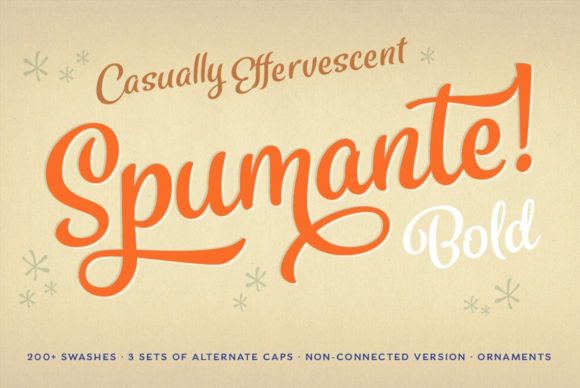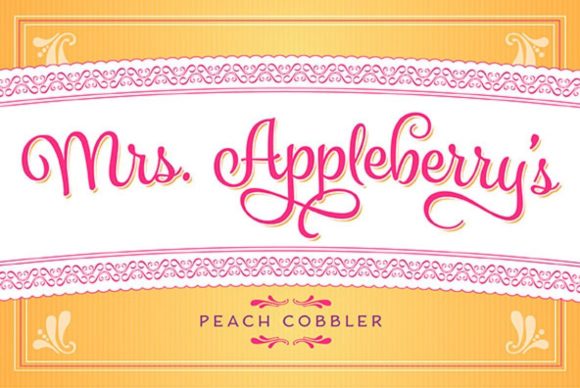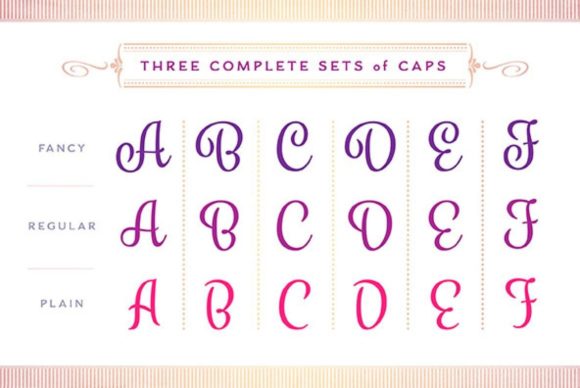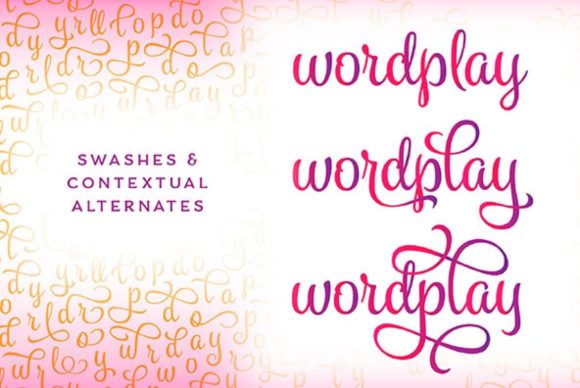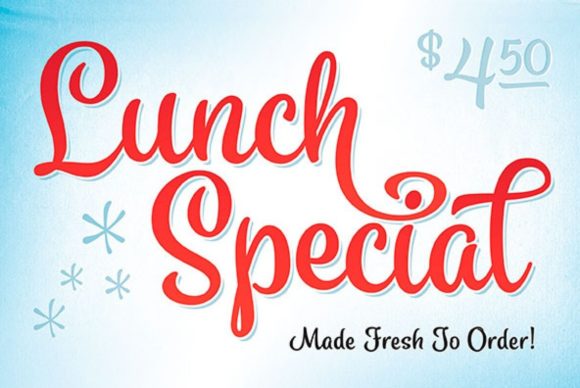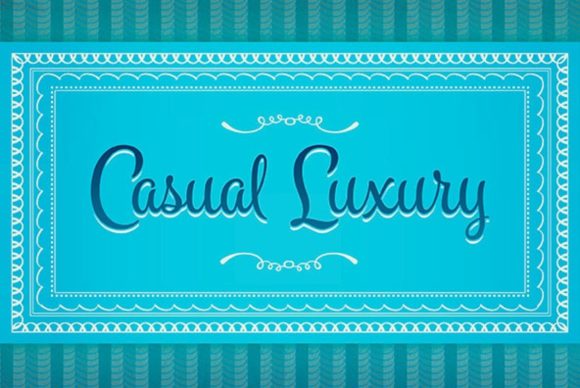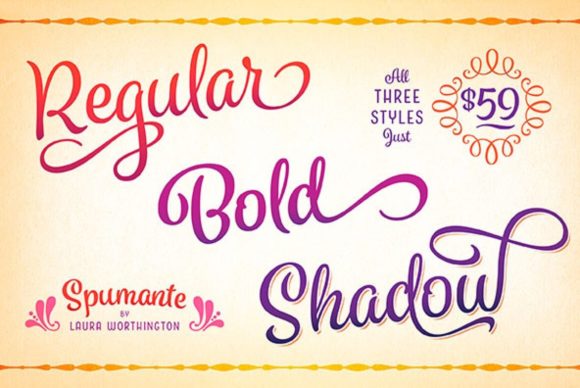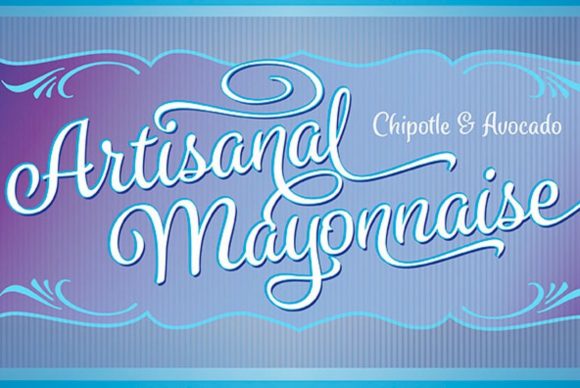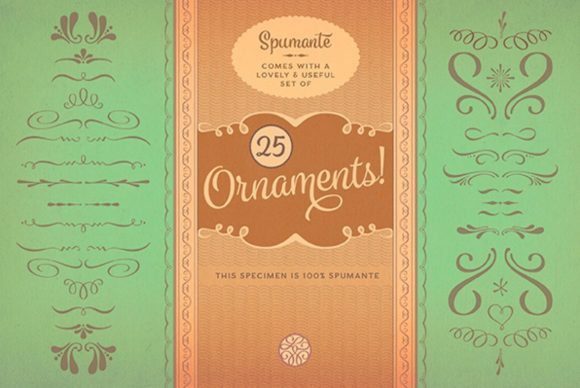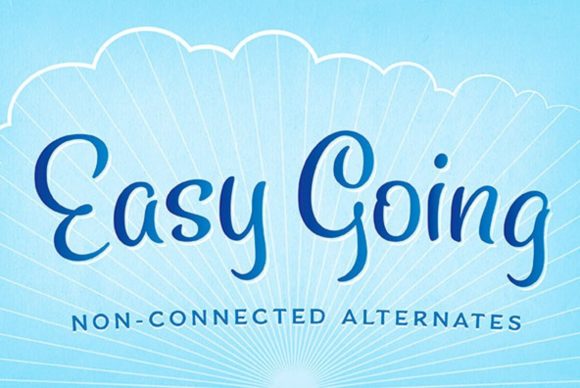
Spumante Font
About Spumante Font
A slim, semi-connected script with lithely upright curves, Spumante conveys the casual effervescence of its namesake wine. Smoothed brush-script letterforms bounce gently along the baseline, and letters vary slightly in their slant— characteristics that combine to create a very human and inviting mood.
This approachably attractive face transforms from understated femininity to cocktail-party chic in just a few clicks. Dress it up with over 200 swashes, alternates, and ornaments, or use the titling alternates (in the OpenType menu) for a minimalist, unconnected look. Spumante is ideal for food packaging and menus, cosmetic labels, book covers, or greeting cards and invitations.